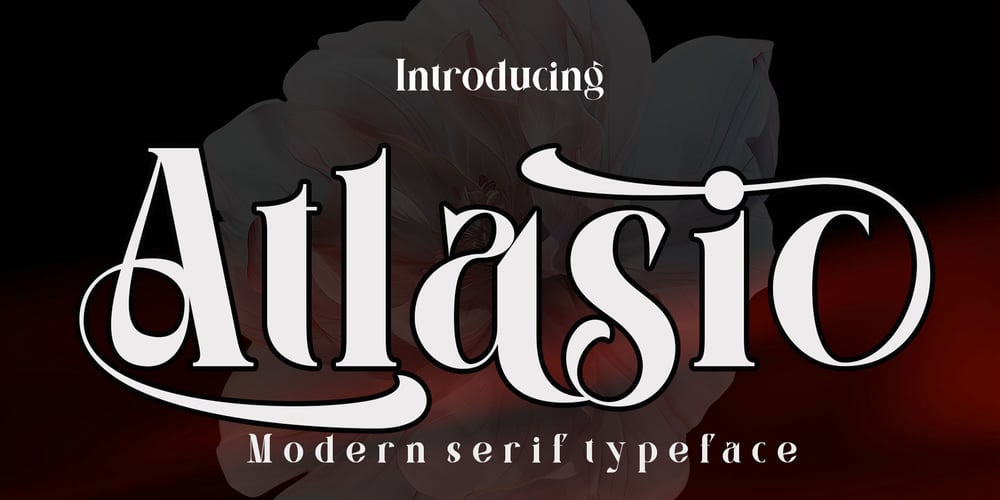
Atlasic
Atlasic font
Atlasic Font Family was designed by Canden Meutuah and published by Canden Meutuah. Atlasic contains 1 styles and family package options. minimalist and neat sans serif font. It can be easily adapted to a very large range of projects, such as advertising, titles, blogs, logos, branding, invitations, business cards and more!So add it to your creative ideas and watch how it makes it stand out!